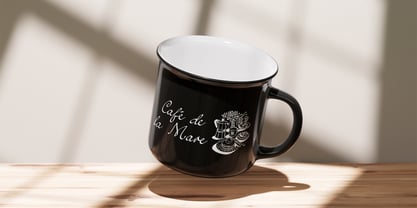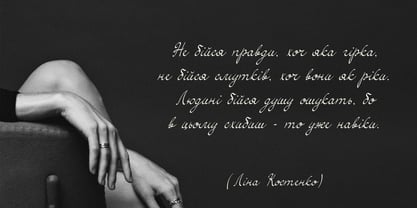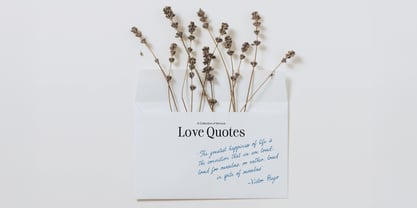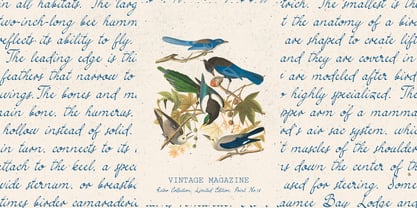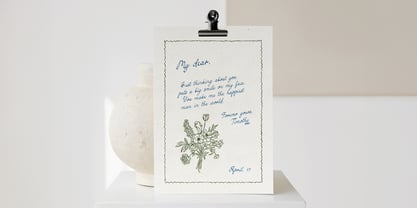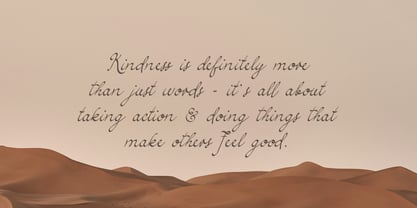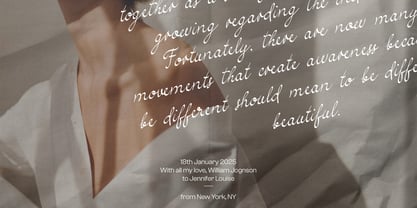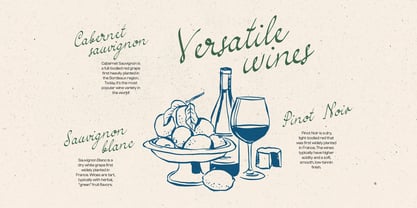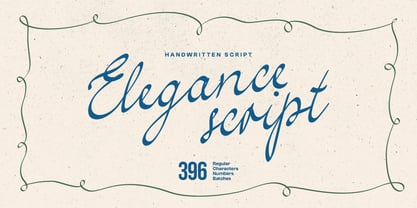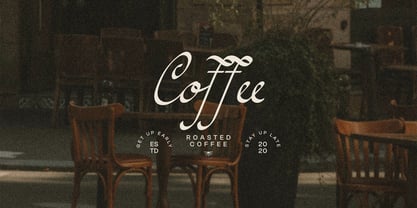
Simple Elegance
Welcome natural looking Simple Elegance script with opentype ligatures for your next design project. Create packaging design, brand identity, art posters, invitations, restaurant menu and more. Includes Latin & Cyrillic alphabet.
It contains all characters and symbols you'll ever need, including all punctuation and numbers.